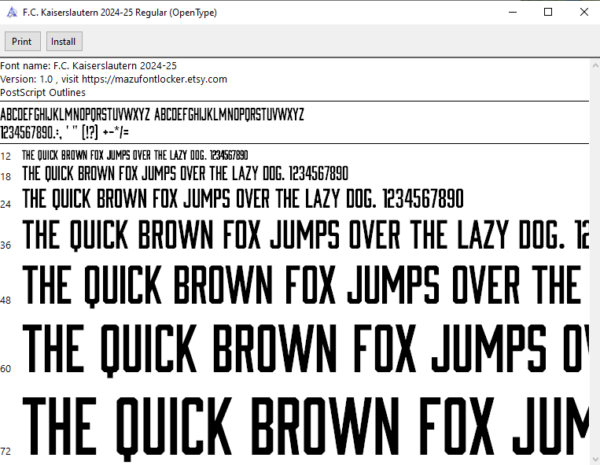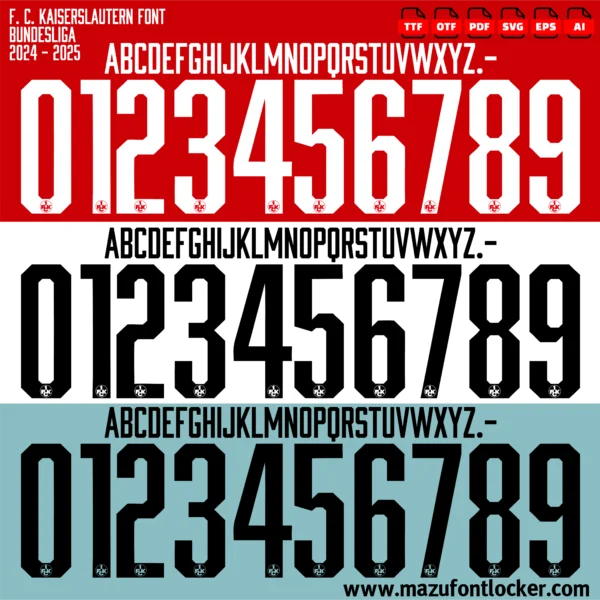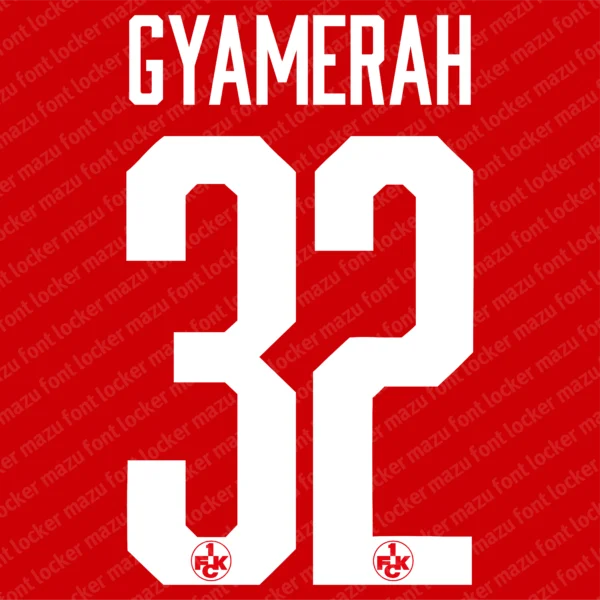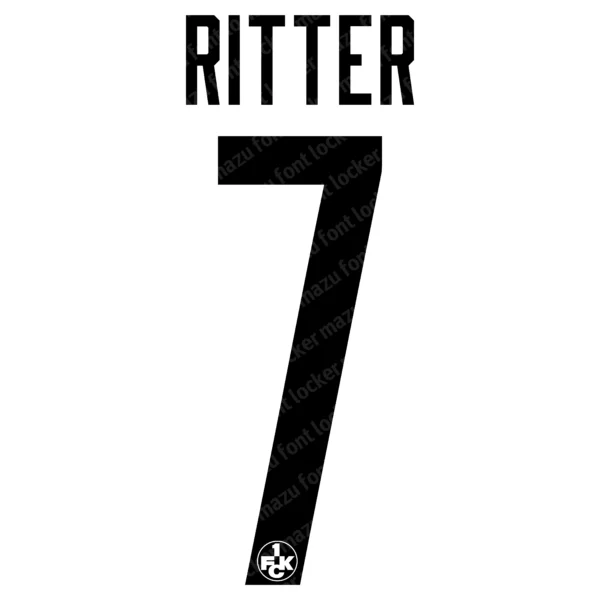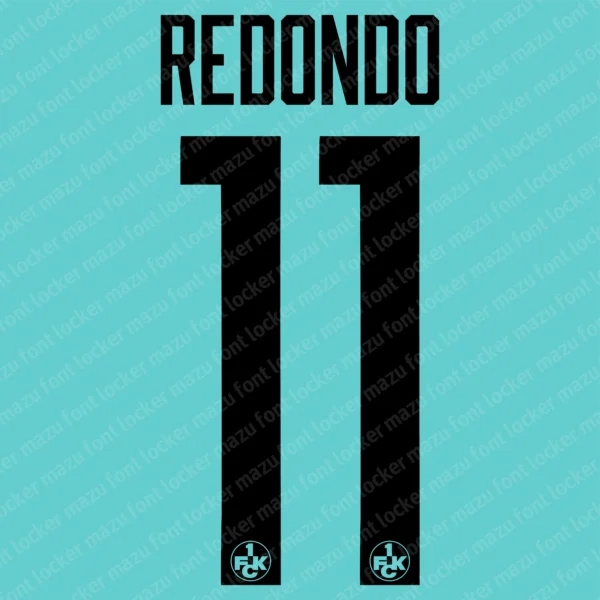
FC Kaiserslautern 2024-25 Font Vector – Legendary Red Devils Masterpiece
FC Kaiserslautern 2024-25 Font Vector – Authentic FCK Typeface
The FC Kaiserslautern 2024-25 Font Vector is a premium typeface that accurately recreates the official match lettering worn by FC Kaiserslautern during the 2024-25 season. This high-quality vector font kit captures the bold, aggressive, and iconic typography that represents the passion, fighting spirit, and Red Devils identity of Die Roten Teufel.
Designed for professional designers and passionate FCK fans, the FC Kaiserslautern 2024-25 Font Vector delivers perfect authenticity for creating realistic jersey mockups, fan merchandise, matchday posters, social media graphics, and German football content. It pairs beautifully with the iconic red home kit featuring the famous club crest.
Why Choose FC Kaiserslautern 2024-25 Font Vector
This font stands out because of its sharp vector precision and strong club identity. Every letter and number is crafted to match the exact style used on the players’ shirts during the 2024-25 season. Whether you are making realistic kit templates or exciting FCK content, the FC Kaiserslautern 2024-25 Font Vector gives your designs that authentic Palatinate look.
The letterforms in the FC Kaiserslautern 2024-25 Font Vector are tall, bold, and highly readable. The strokes have a strong, clean weight with excellent edge definition that looks powerful on the back of jerseys while maintaining classic German heritage and fierce energy.
• Full uppercase A–Z and numbers 0–9 in authentic FC Kaiserslautern 2024-25 style
• Create highly realistic FC Kaiserslautern 2024-25 home and away jersey mockups with accurate lettering
FC Kaiserslautern 2024-25 Campaign
The FC Kaiserslautern 2024-25 Font Vector is an independently designed typeface package. It is carefully crafted to replicate the official shirt lettering style of the 2024-25 season. This font kit is perfect for creative projects, fan edits, nostalgic jersey designs, and custom football graphics.